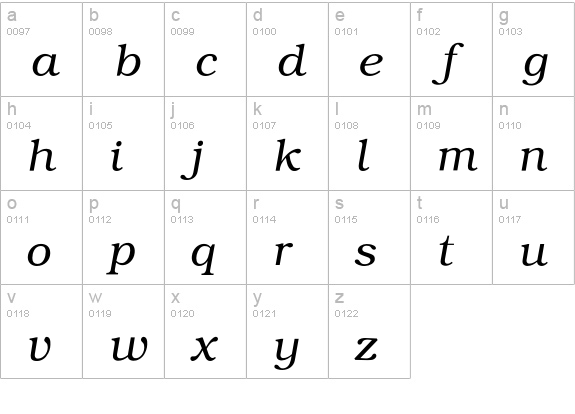
BookmanLightItalic Font Details
BookmanLightItalic font is a classic and elegant typeface that exudes sophistication and refinement. Its slanted italic style adds a touch of flair and grace to any text, making it perfect for use in a variety of design projects. The delicate curves and flowing lines of BookmanLightItalic font give it a timeless and timeless appeal that is sure to enhance the visual impact of any written content. What makes BookmanLightItalic font even more appealing is that it is available for free download at FontsMarket.com. This means that you can easily access and use this beautiful font in your projects without any cost. Whether you're creating invitations, posters, logos, or any other design piece, BookmanLightItalic font will bring a touch of sophistication and style to your work. Download it today and elevate your designs with this exquisite typeface.